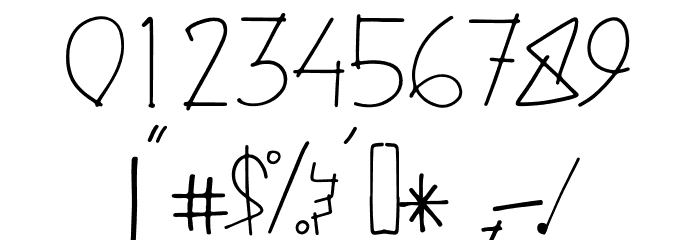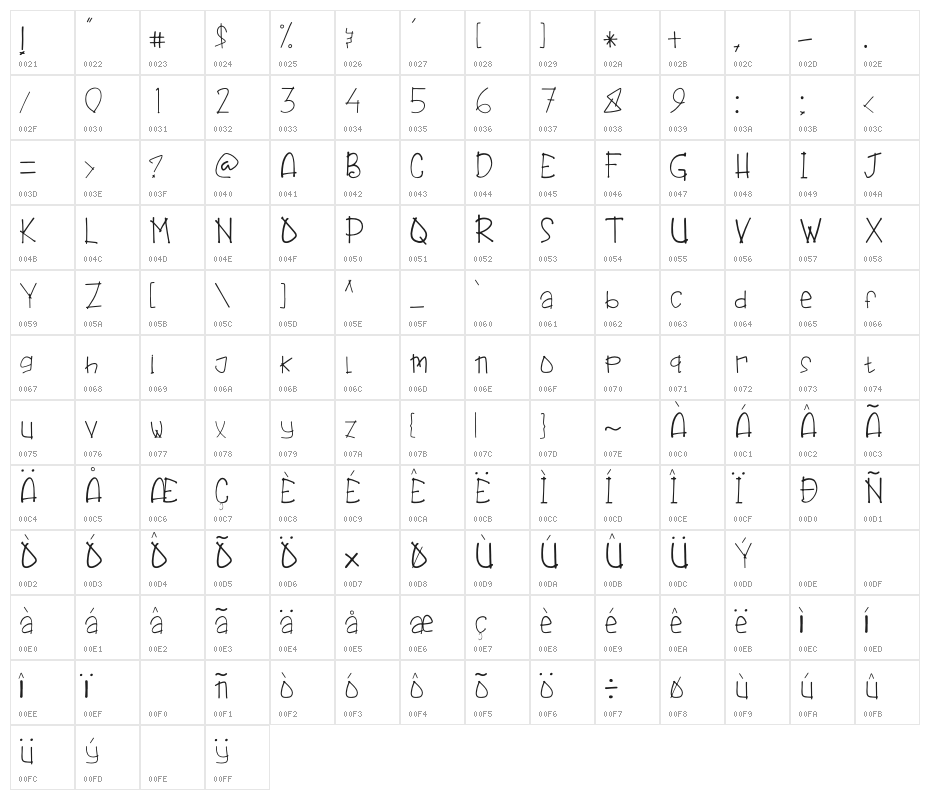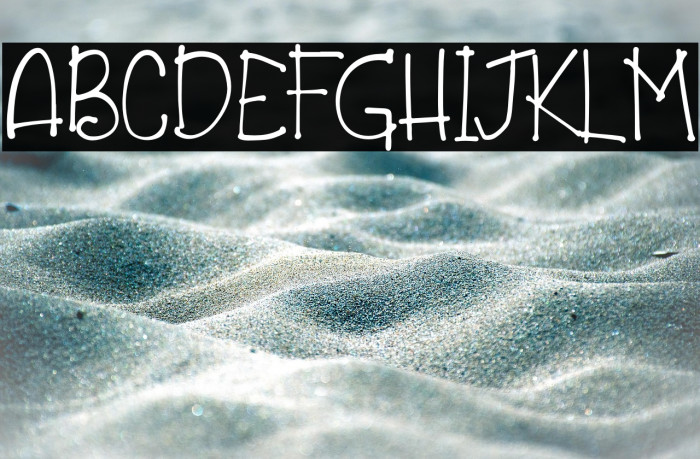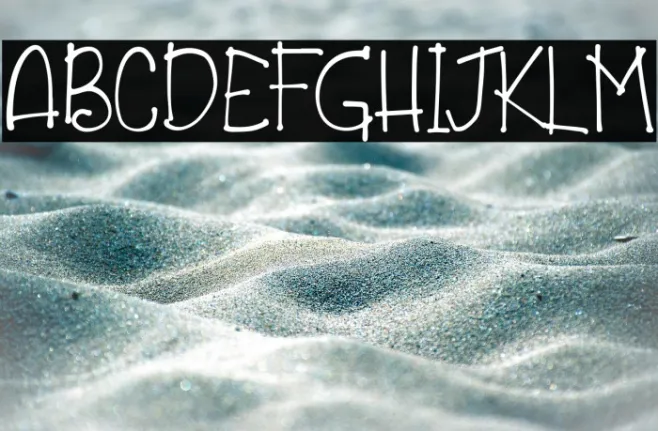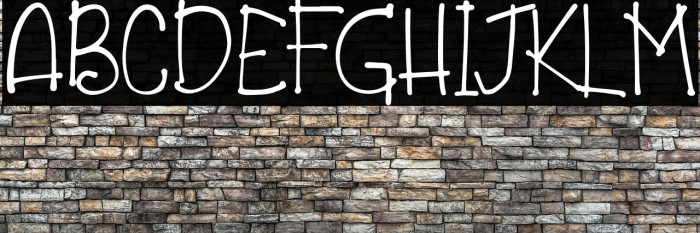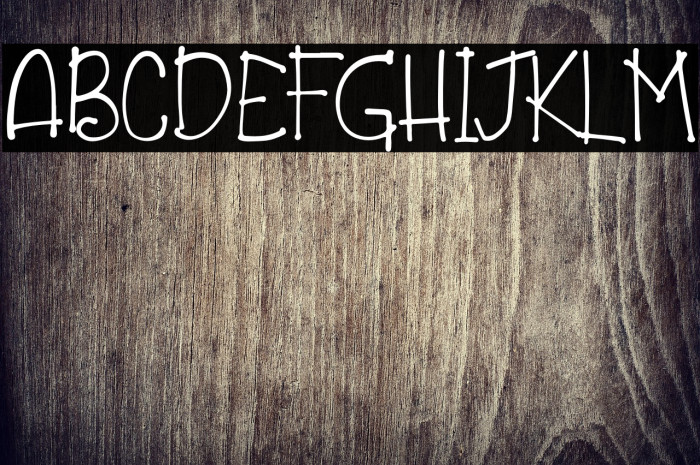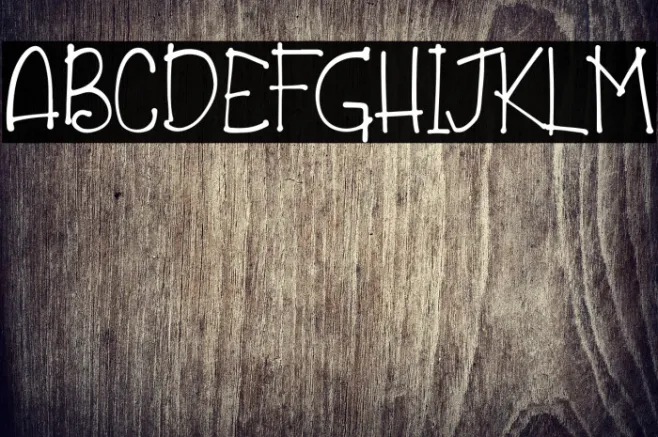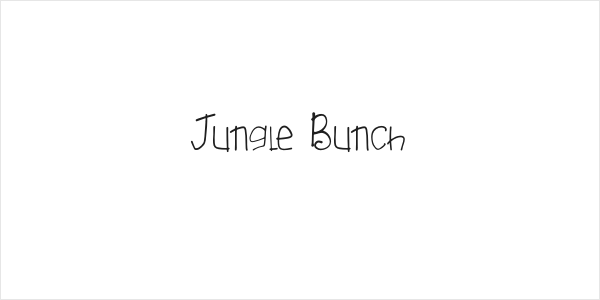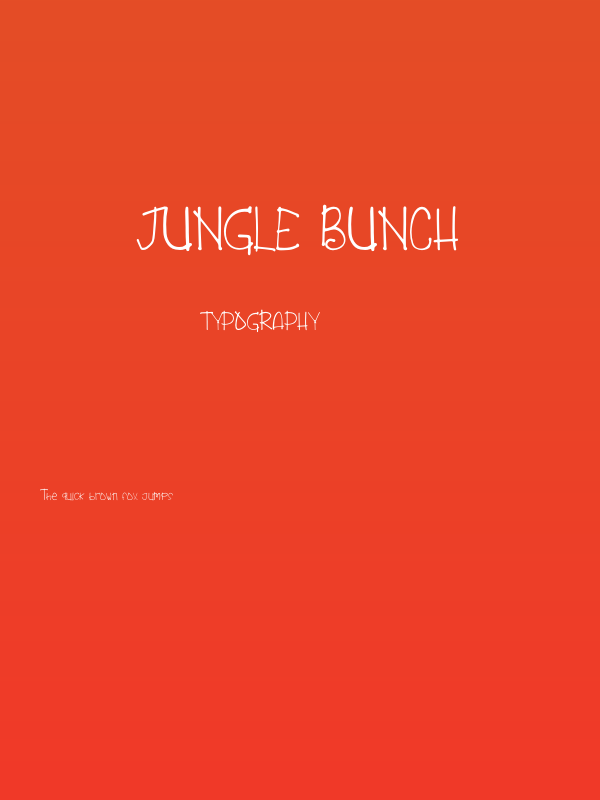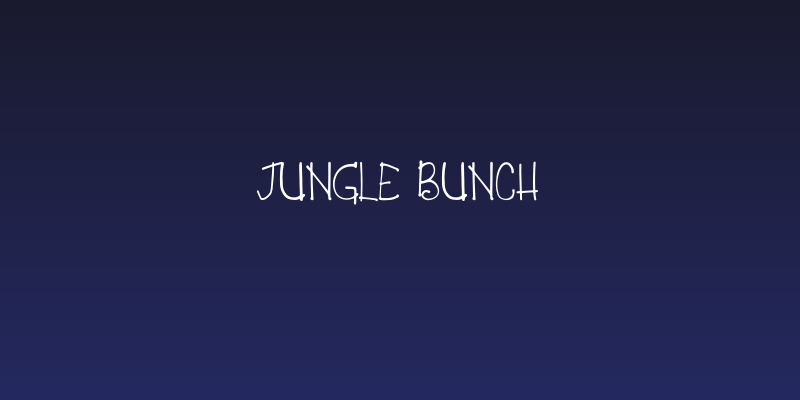
Jungle Bunch Font
Jungle Bunch Description
This font features a playful and whimsical design, characterized by its irregular and hand-drawn appearance. The letters have a casual, almost doodle-like quality, with varying stroke thickness and a slightly uneven baseline that adds to its charm. The uppercase and lowercase letters maintain a consistent style, with elongated and curved lines that give it a unique personality. The numbers and special characters follow the same playful theme, making it suitable for creative and informal projects.